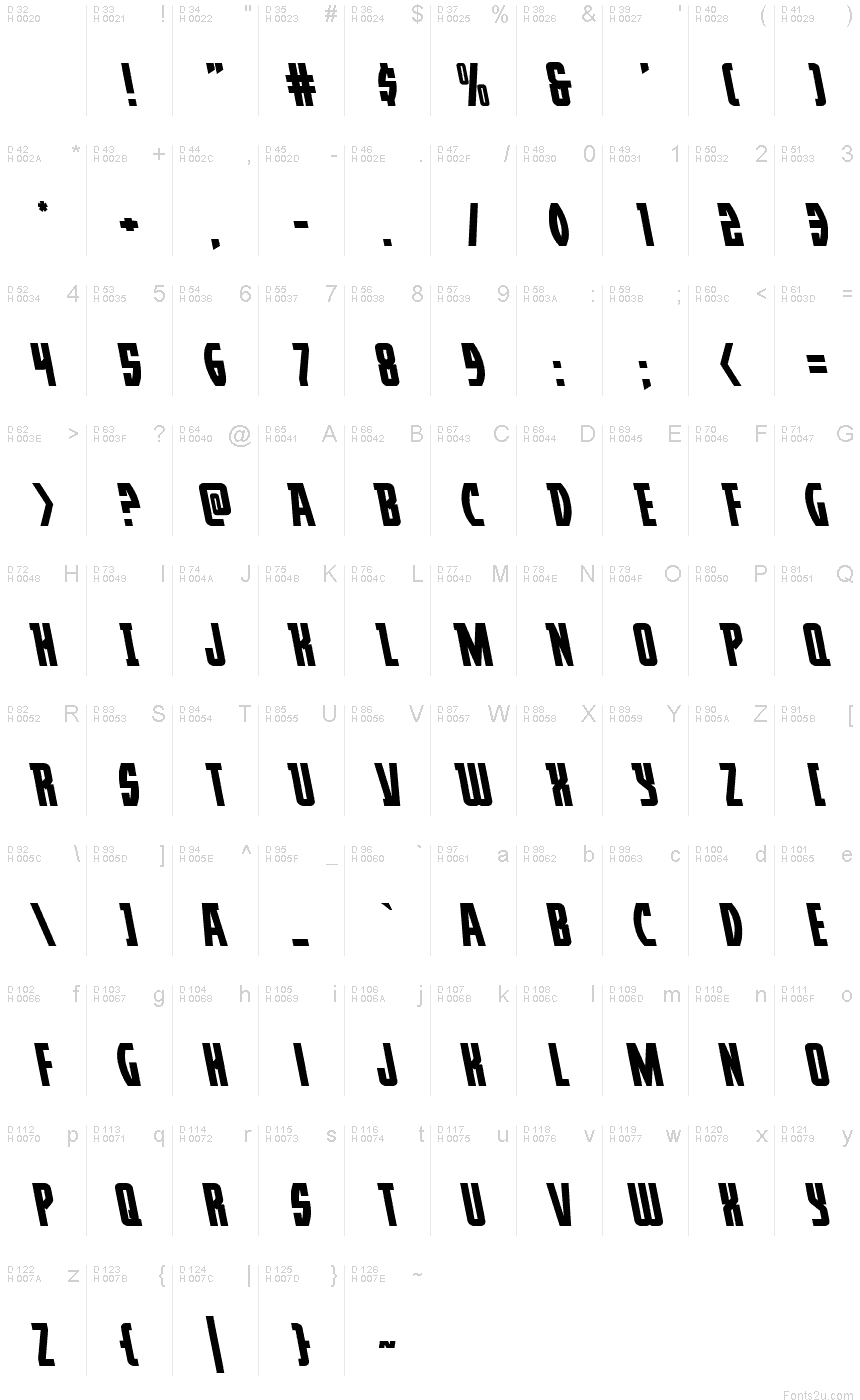
Prowler Leftalic, a free decorative display font from Iconian Fonts, was created in 2011 with towering, tightly compressed letters. Its dense strokes shift between blunt verticals and sharp diagonal cuts. Small openings and pinched joins make the forms look tense and mechanical.
Motorsport, action cinema, and industrial subjects suit its aggressive proportions. It can drive poster titles, game graphics, and racing merchandise, all linked by lettering that resembles a stamped machine mark.
Prowler Leftalic